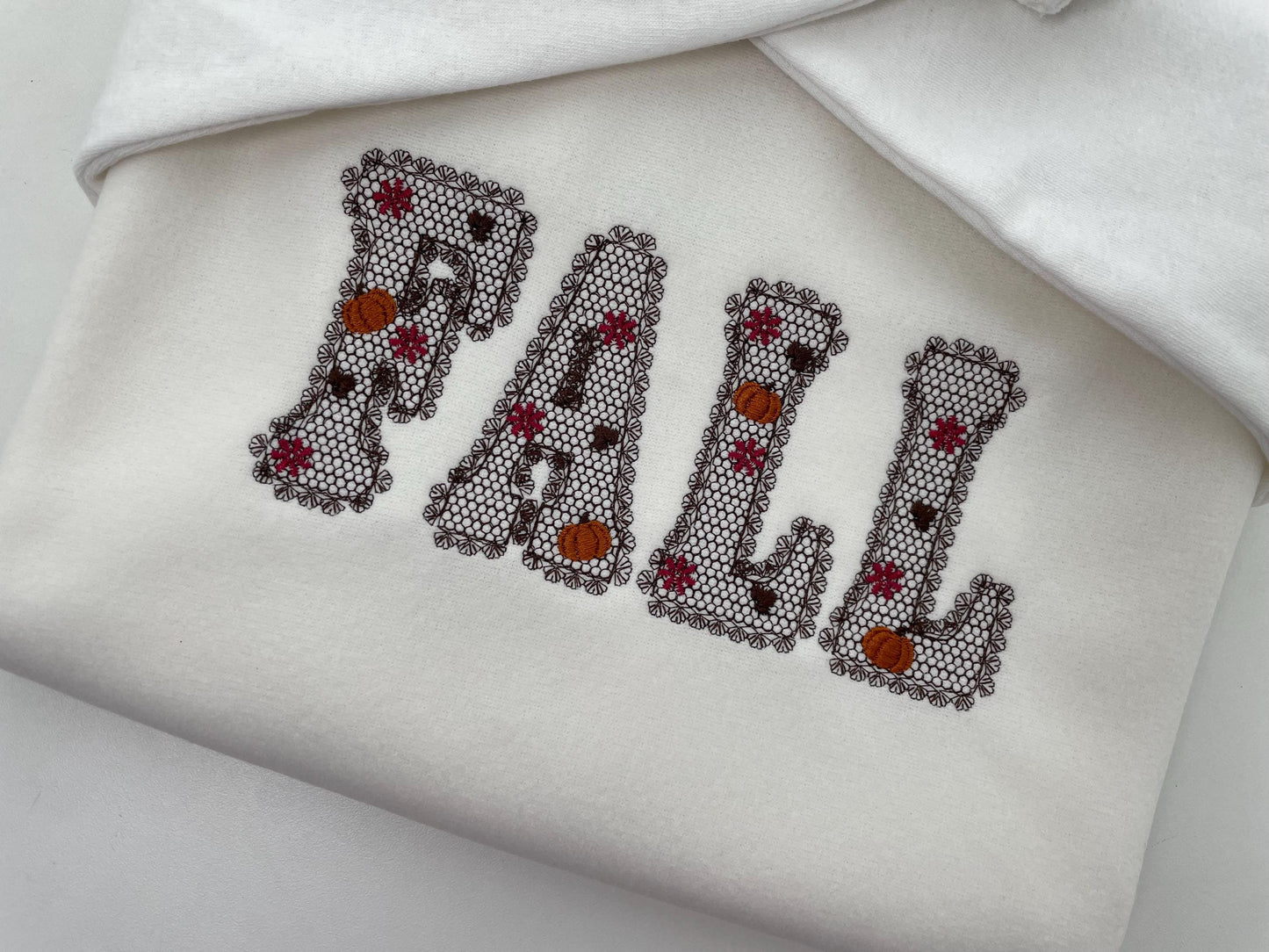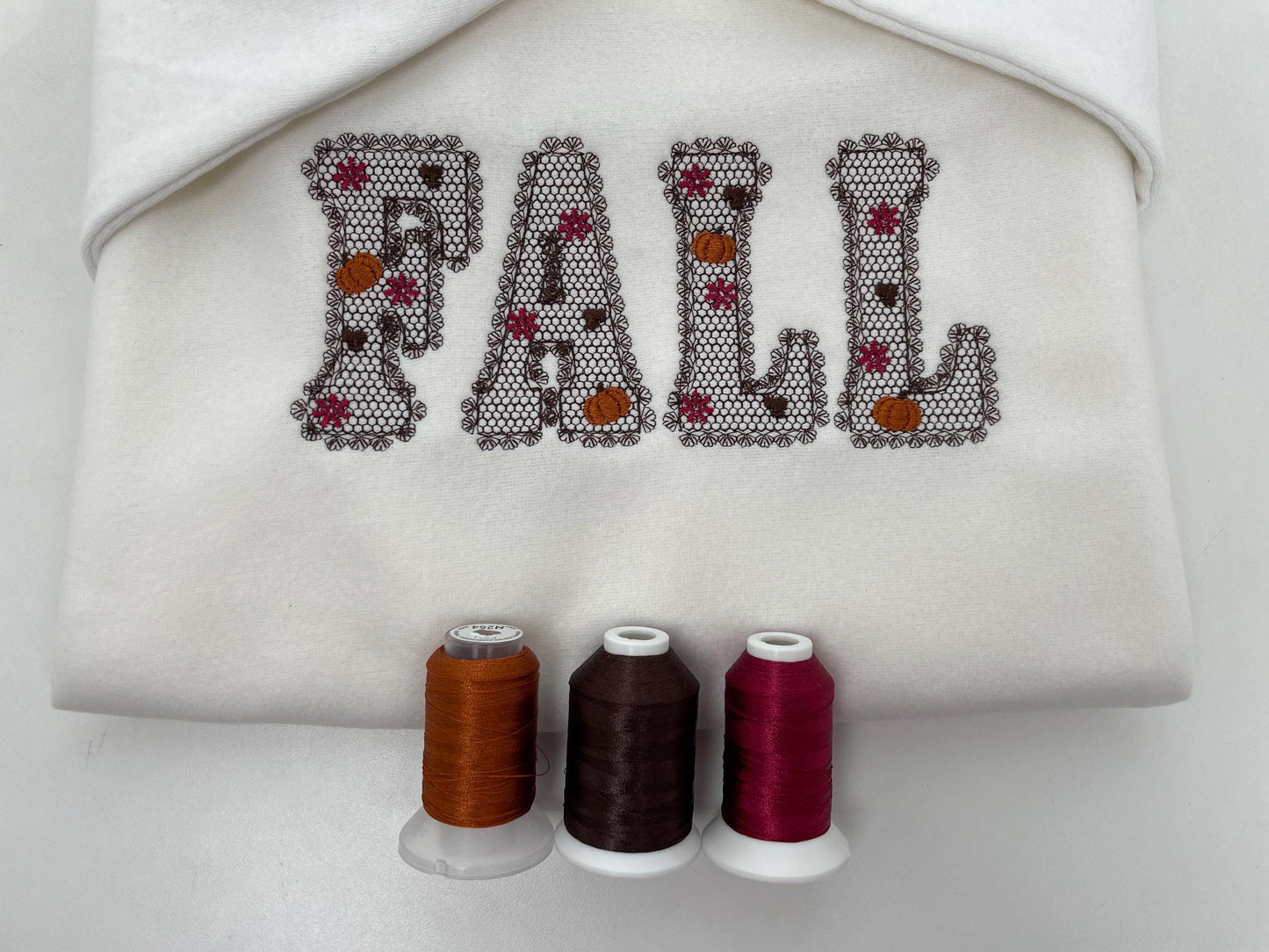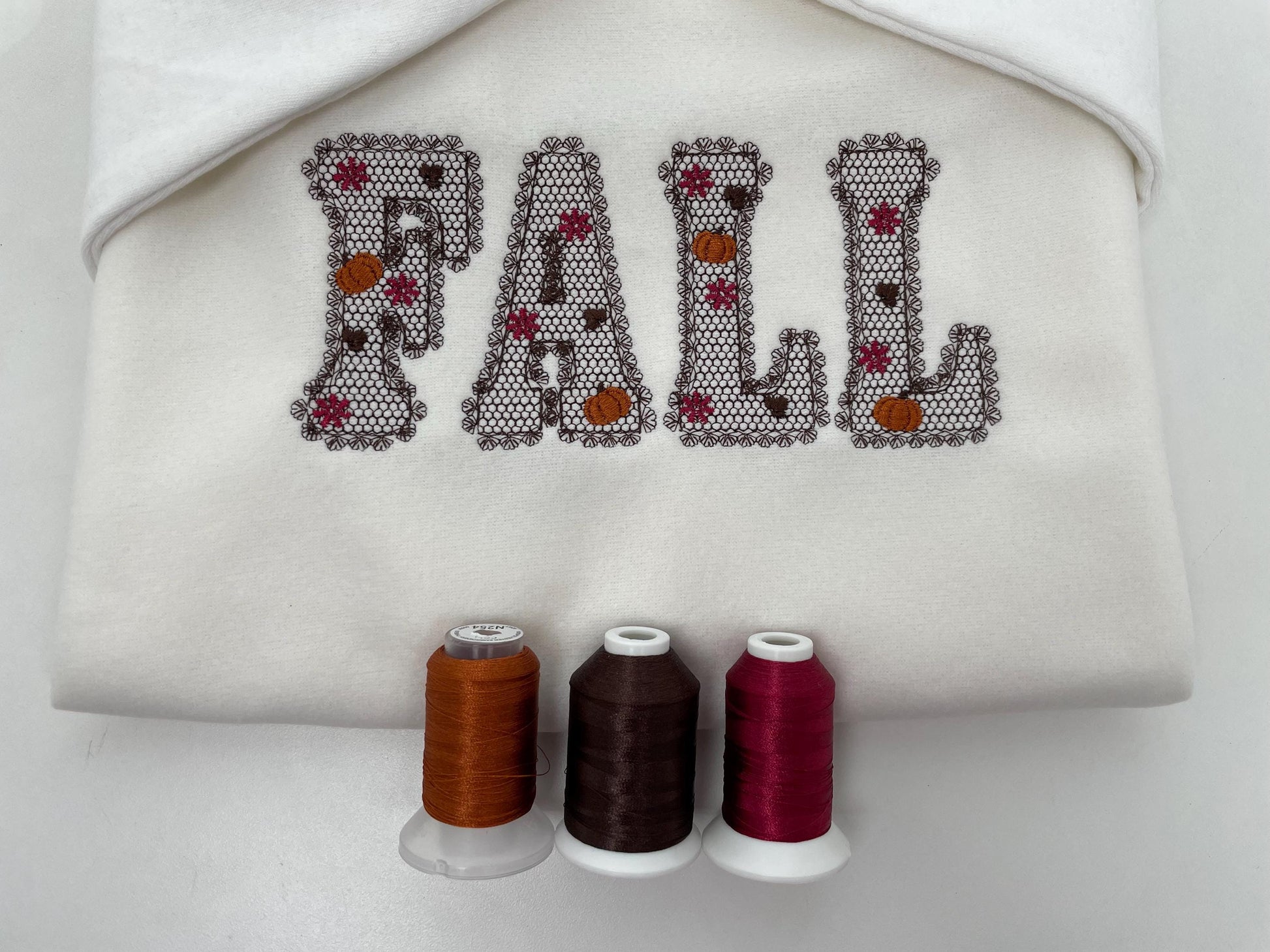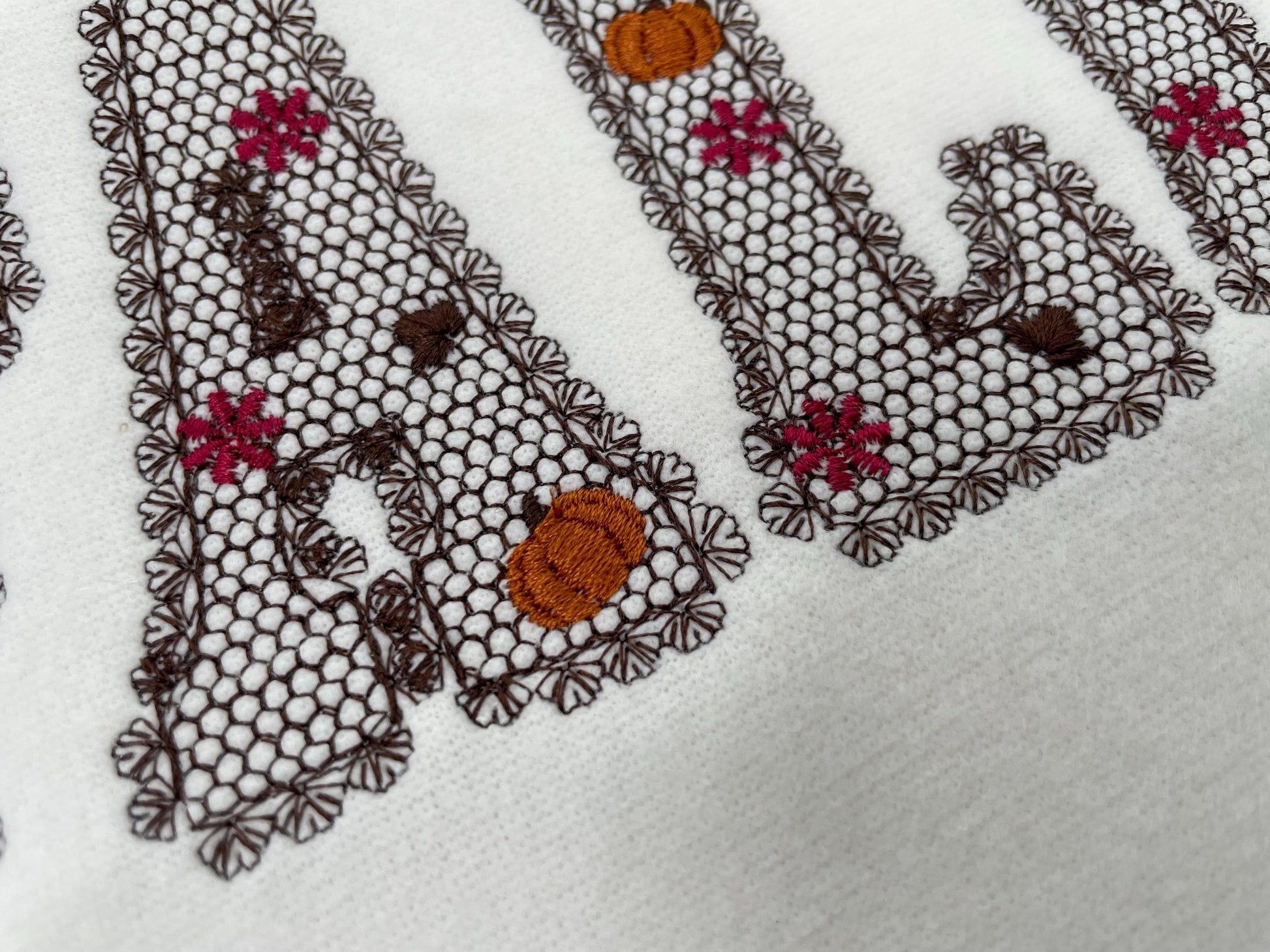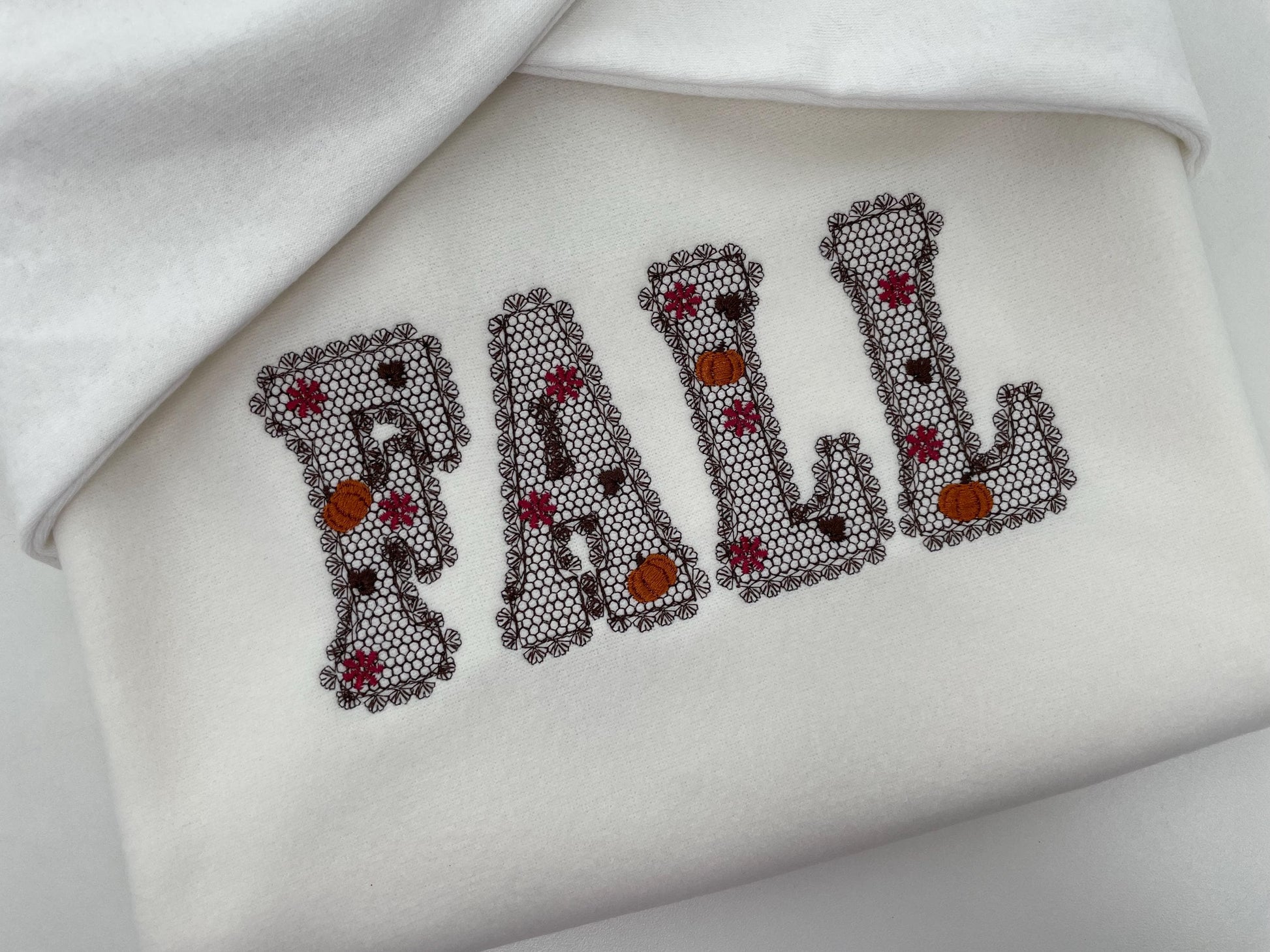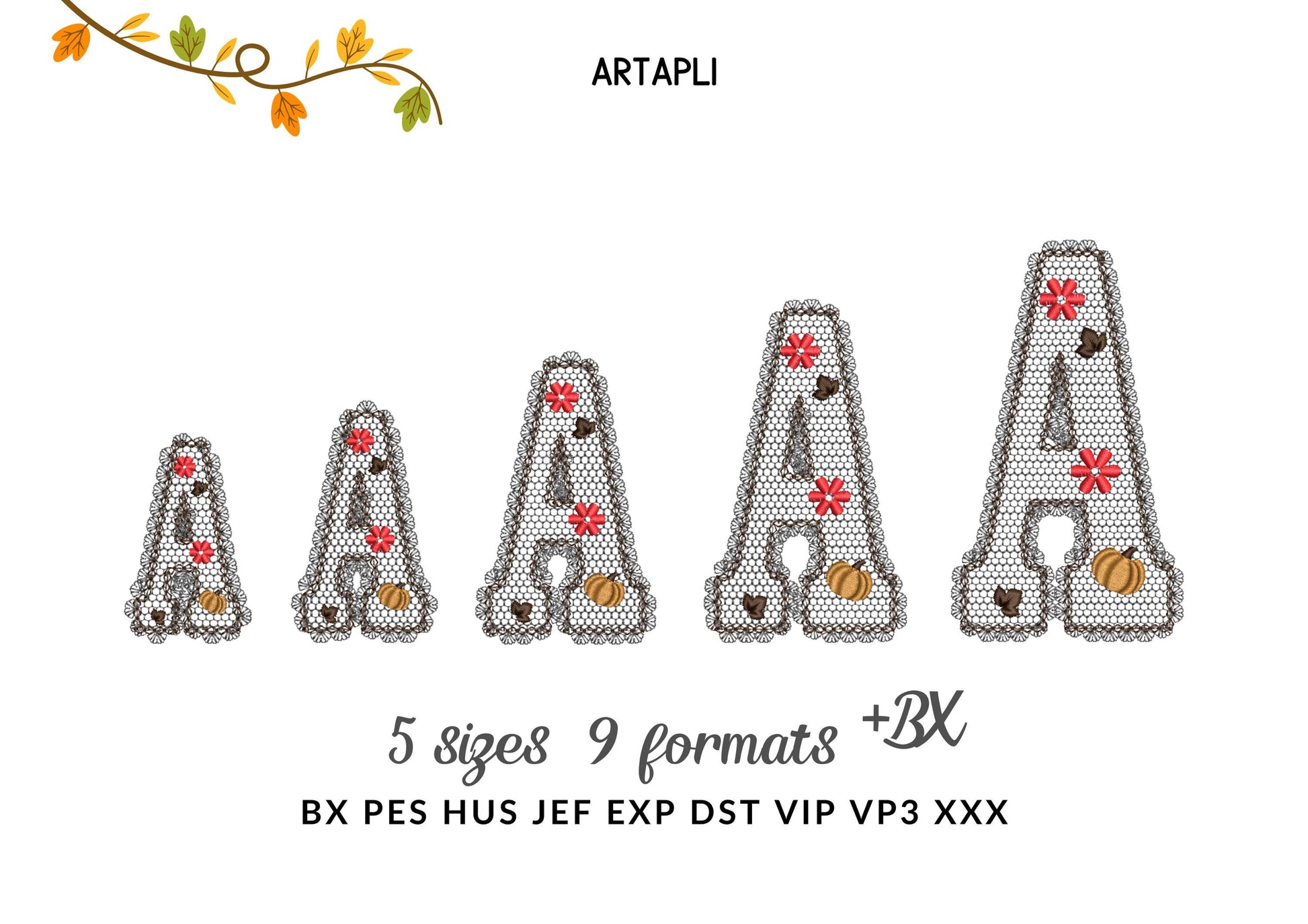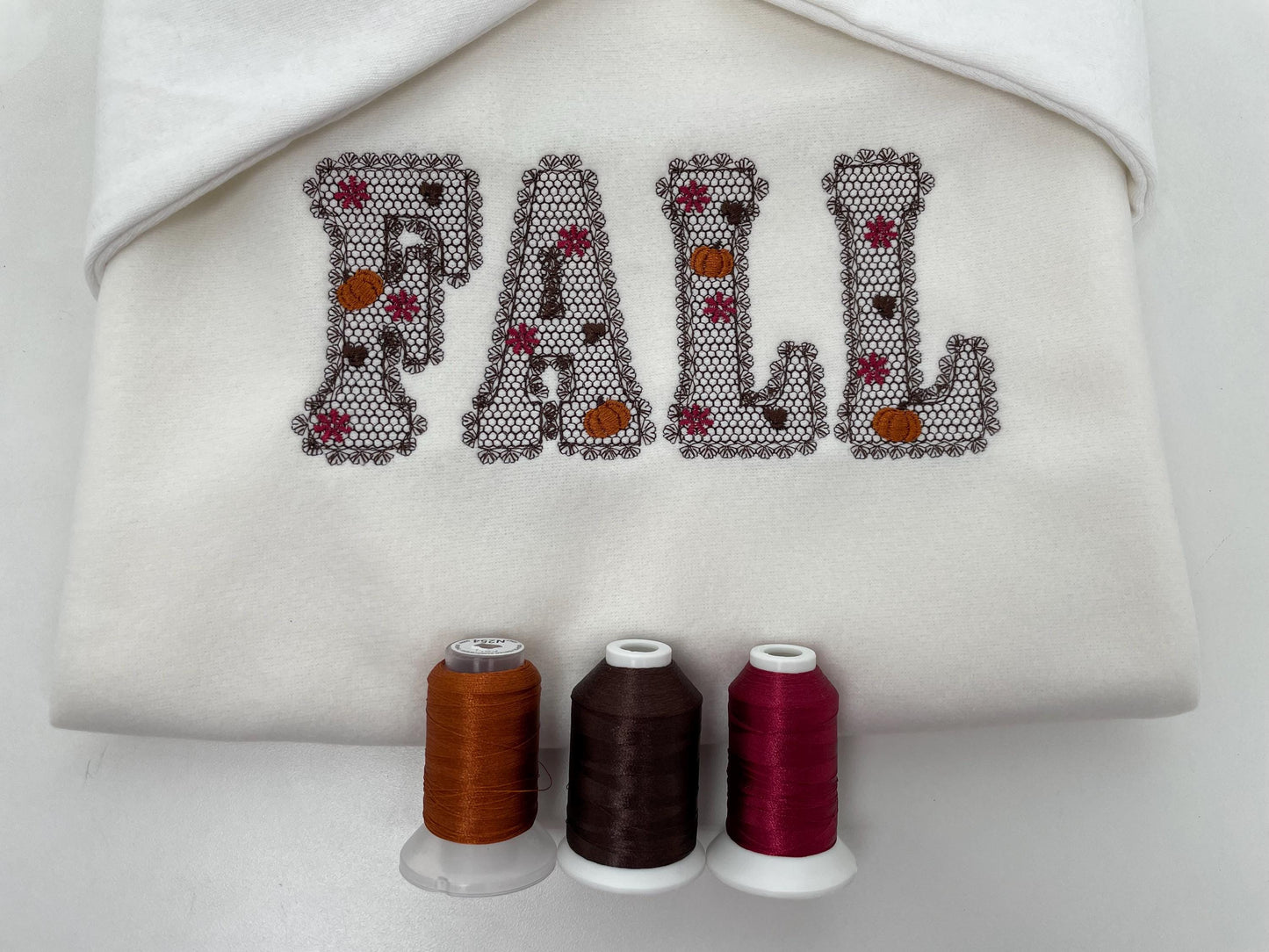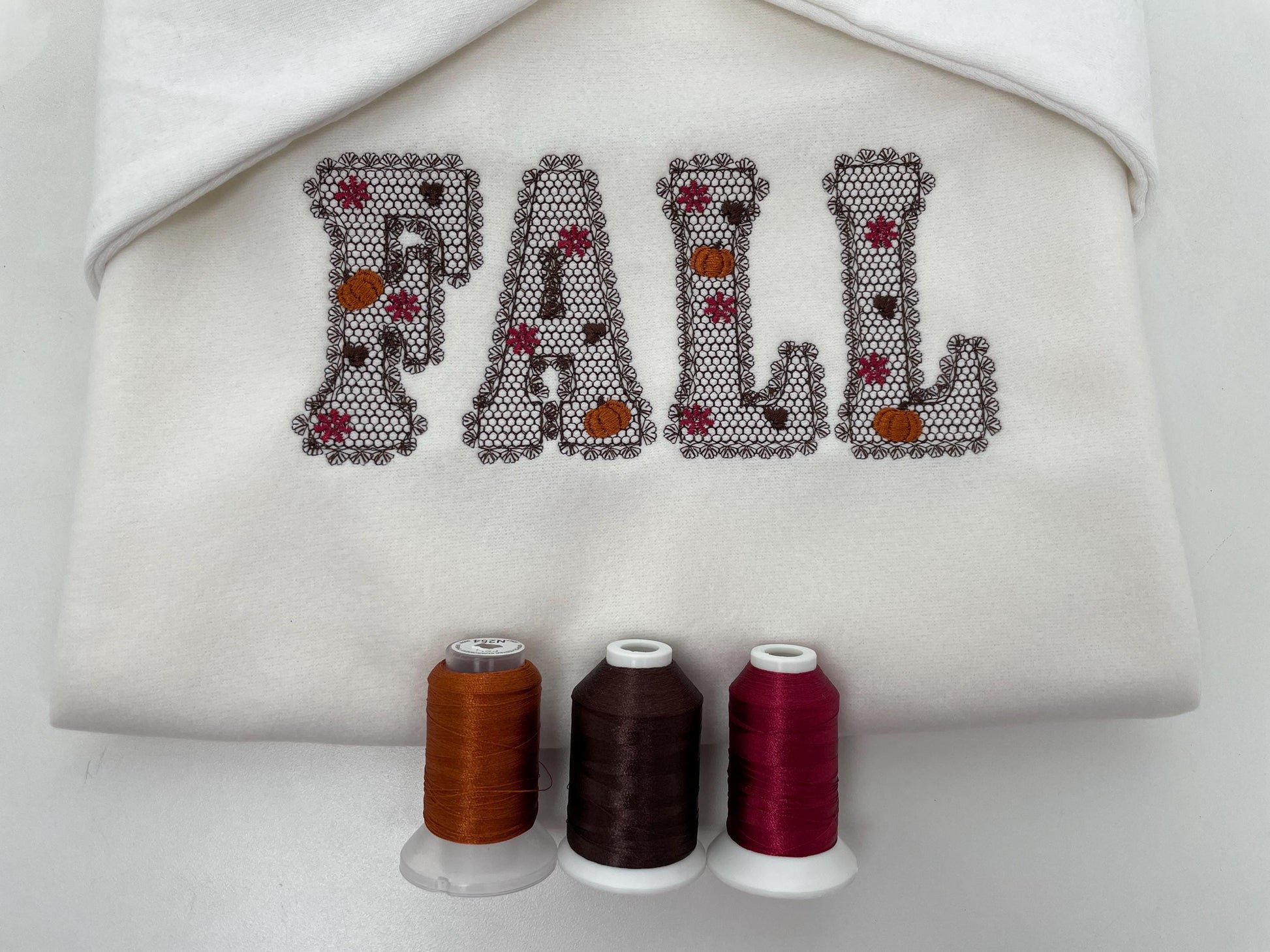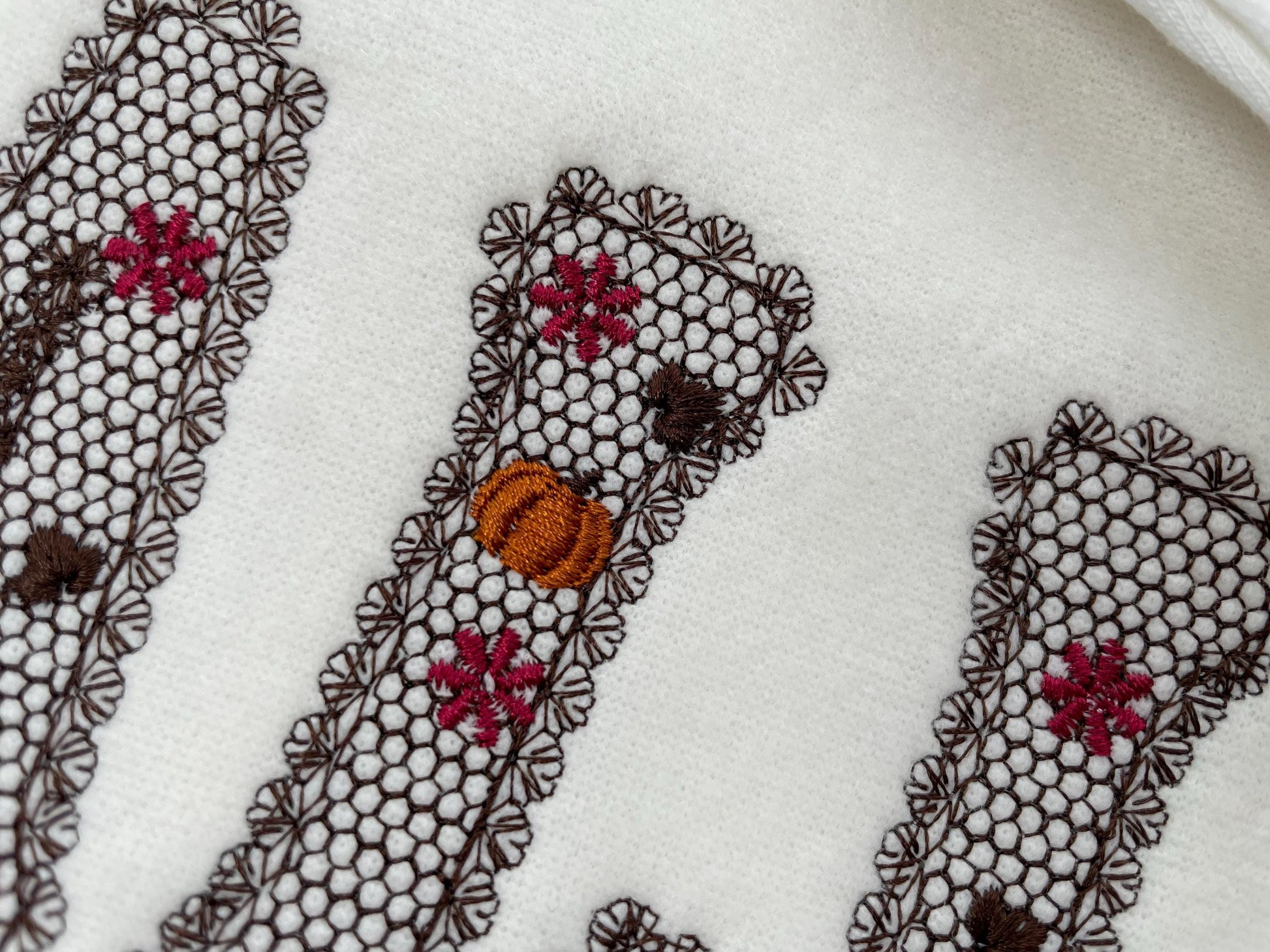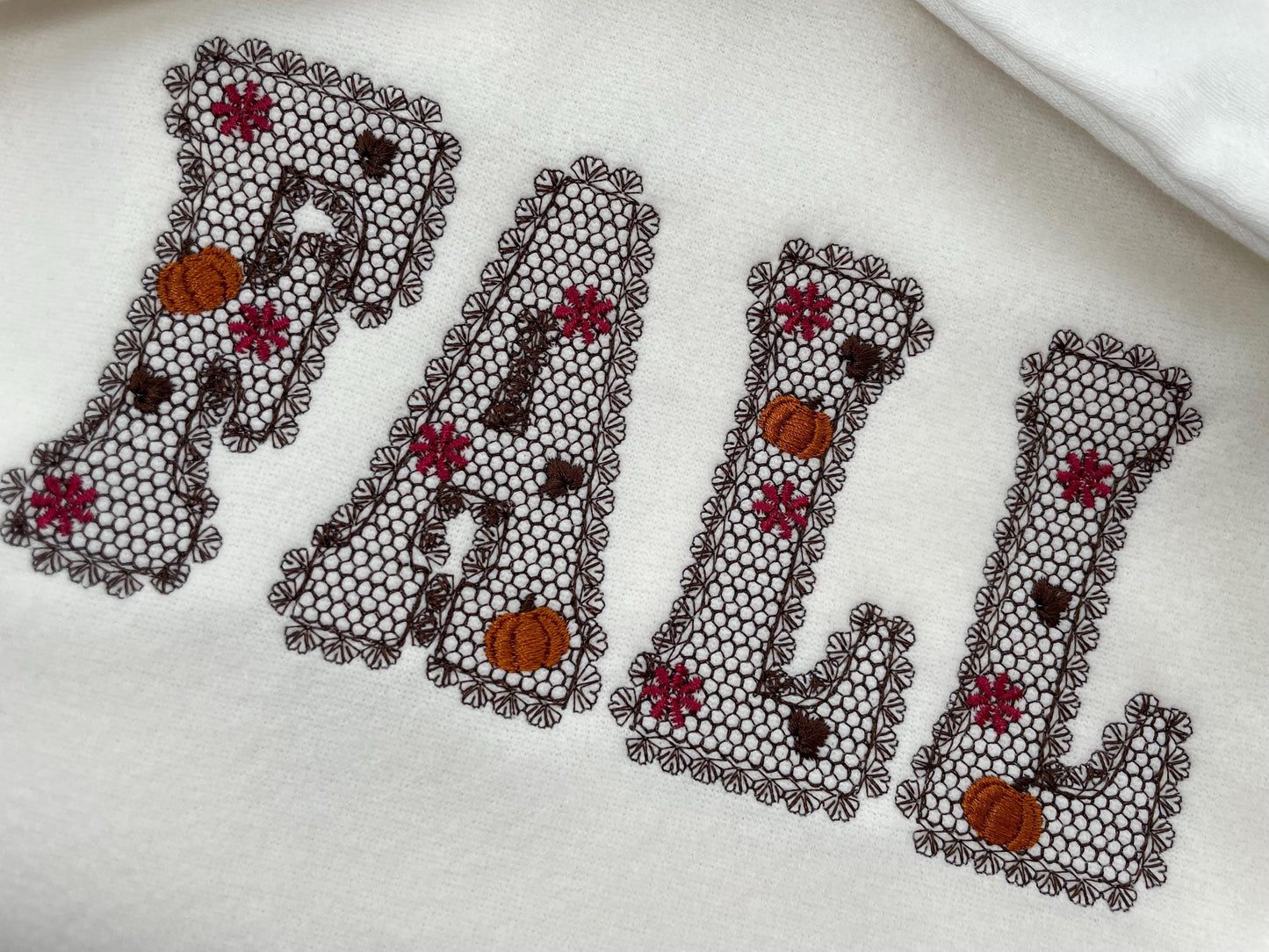
Or click to open the linkA lace edge fall font with a lacy pumpkin and floral pattern. Pretty for Thanksgiving towels, autumn shirts, pillows and names.
Uppercase letters A to Z, numbers 0 to 9 and an ampersand, in five sizes: 2.5, 3, 3.5, 4.5 and 5 inches. The lace pattern and edge are part of the stitching, and the fabric shows through.